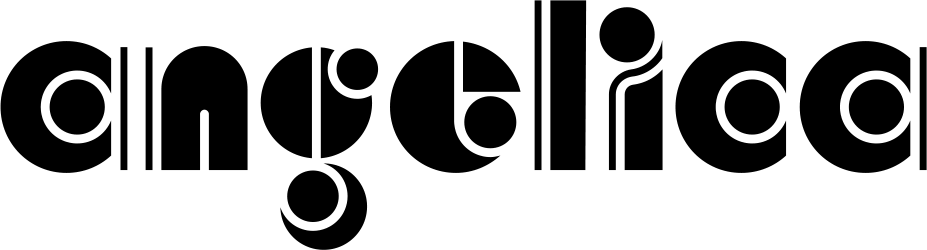
Angelica CP Font
Designed byClaudeP
Angelica CP font has a retro and fancy design that uses geometric objects, especially circles. This retro font does not have uppercase letters, but you can take the best advantage of it to design a music cover and increase sales.
This 90s cartoon font can be your best choice for designing T-shirts with the theme of the casino and the ’90s. If you have trouble creating Instagram posts for old-fashioned styles, this font can be a wise choice to increase your followers.